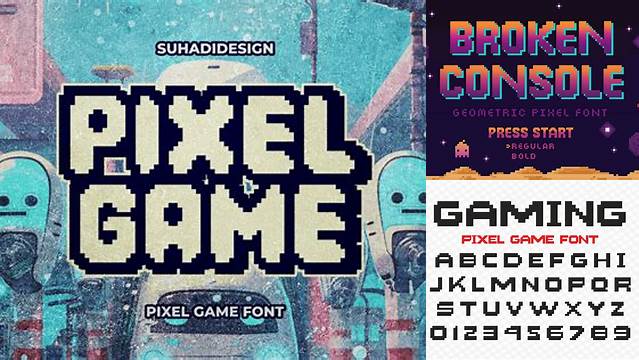
Top Fonts For Pixel Art Games: Enhance Your Game's Style
Creating a pixel art game involves so much more than just the graphics! The fonts you choose play a HUGE role in setting the mood, conveying information, and making your game look polished and professional. Choosing the best fonts for pixel art games can be tough, but don't worry, guys! This guide will break down everything you need to know, from understanding pixel fonts to picking the perfect one for your project. Let’s dive in!
Pixel Art Fonts: An Overview
When we talk about pixel art fonts, we're talking about fonts specifically designed to look good when rendered at low resolutions. These fonts use individual pixels to create each character, giving them that retro, blocky look that's so characteristic of classic video games. Choosing the right pixel art font is crucial because it directly impacts readability and the overall aesthetic of your game. Imagine using a super fancy, high-resolution font in a pixel art game – it just wouldn't fit! Pixel fonts maintain the integrity of the pixel art style, ensuring everything looks cohesive and intentional. A well-chosen font can enhance the player's experience, making text easy to read and visually appealing, which is super important for conveying information effectively. Conversely, a poorly chosen font can detract from the game's aesthetic and make text difficult to read, frustrating players and diminishing their enjoyment. So, spend some time exploring different options and finding a font that complements your game's unique style and enhances its overall appeal. You might be surprised at how much difference the right font can make!
Readability in Pixel Art Games
Readability is key when it comes to pixel art games. If your players can't easily read the text in your game, they're going to have a bad time. When selecting best fonts for pixel art games, prioritize fonts with clear, distinct letterforms. Avoid fonts with overly complex or stylized designs, as these can become difficult to decipher at low resolutions. The spacing between letters and words is also crucial. Too little spacing, and the text will appear crowded and jumbled. Too much spacing, and the text will look disjointed and difficult to follow. Experiment with different spacing options to find a balance that works well for your chosen font and the overall aesthetic of your game. Consider the size of the font as well. While you want the text to be large enough to be easily readable, you don't want it to be so large that it dominates the screen or obscures important gameplay elements. Test your chosen font in various in-game scenarios to ensure that it remains readable under different lighting conditions and against different backgrounds. Get feedback from other people to see if they have any trouble reading the text. Making sure your font is readable will enhance the user experience a lot.
Matching Font Style to Game Genre
The best fonts for pixel art games aren't just about readability; they're also about matching the font style to the genre of your game. A futuristic sci-fi game might call for a sleek, angular font, while a fantasy RPG might benefit from a more ornate, handwritten-style font. Consider the overall tone and atmosphere of your game when making your selection. Is it lighthearted and whimsical, or dark and gritty? The font you choose should reflect this. Research fonts that are commonly used in games of your genre for inspiration. Think about classic games that you admire and pay attention to the fonts they use. Don't be afraid to experiment with different options to see what works best for your particular game. You can even create your own custom pixel font to perfectly match your game's unique style. Tools like FontForge and Piskel make it easy to design and create pixel fonts from scratch. The most important thing is to find a font that feels like a natural extension of your game's world and enhances the player's immersion.
Creating Custom Pixel Art Fonts
Feeling ambitious? You can even go the extra mile and start creating custom pixel art fonts! Designing your own fonts gives you complete control over the look and feel of your game's text. Tools like FontForge and Piskel make it relatively easy to create pixel fonts from scratch, even if you don't have any prior font design experience. Start by sketching out the basic shapes of your letters on graph paper or in a pixel art editor. Pay attention to the spacing between letters and words to ensure readability. Experiment with different styles and designs to find something that perfectly matches your game's aesthetic. Once you've created your font, test it in your game to see how it looks and feels in context. Get feedback from other people to see if they have any suggestions for improvement. Creating your own pixel font can be a time-consuming process, but it can also be incredibly rewarding. Not only will you have a unique font that perfectly matches your game, but you'll also gain a deeper understanding of typography and design. So, if you're looking for a way to make your game stand out from the crowd, consider creating your own custom pixel font. This is a great way to find the best fonts for pixel art games for your project!
Best Pixel Fonts for RPG Games
For RPG games, the best fonts for pixel art games often lean towards those that evoke a sense of adventure, history, or fantasy. Think about fonts that resemble calligraphy or old-style printing. A slightly weathered or textured look can also add to the authenticity. Examples include fonts like "Press Start 2P," which is widely used and readable, or more stylized fonts that mimic handwritten text for dialogues and lore. The font should be legible enough to convey important story elements and stats, while also fitting the game's overall aesthetic. Consider fonts that support multiple languages if your game targets a global audience. Test the font with various text sizes and colors to ensure readability across different UI elements.
Top Fonts for Action Pixel Games
In action pixel games, where speed and clarity are crucial, the best fonts for pixel art games are those that are clean, bold, and instantly readable. Avoid overly decorative fonts that can distract players during fast-paced gameplay. Fonts like "Visitor TT2 BR" or a custom-designed, blocky font can work well. Ensure the font stands out against various backgrounds and is easily discernible even when small. Numerical clarity is also important for displaying scores, timers, and health bars. Consider using a monospace font to maintain alignment and readability of numbers. Test the font under different in-game conditions, such as explosions or fast movement, to ensure it remains legible.
Excellent Fonts for Adventure Pixel Games
Adventure pixel games often benefit from fonts that are both readable and evocative of the game's setting. The best fonts for pixel art games for this genre can range from classic pixel fonts to more stylized options that hint at the game's world. For example, a font that resembles typewriter text can add a sense of mystery and investigation. The key is to balance readability with aesthetic appeal. Ensure the font is easy to read during long dialogues and narrative sequences. Consider using different fonts for different types of text, such as a more decorative font for chapter titles and a simpler font for body text. Always test the font in context to make sure it fits the game's overall atmosphere.
Finding the best fonts for pixel art games requires careful consideration and experimentation. By following these guidelines and tips, you can choose fonts that enhance your game's style, improve readability, and provide a great experience for your players. Good luck, and have fun with your font choices!